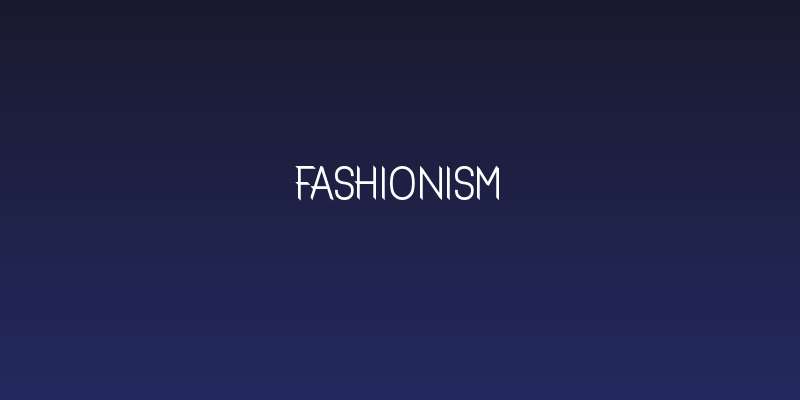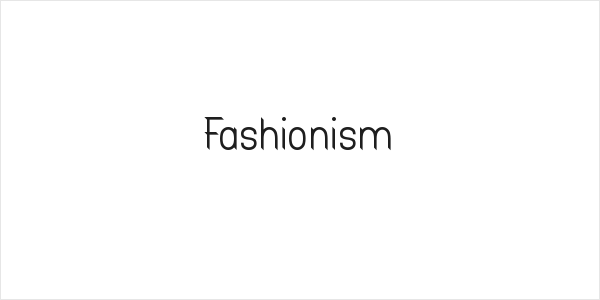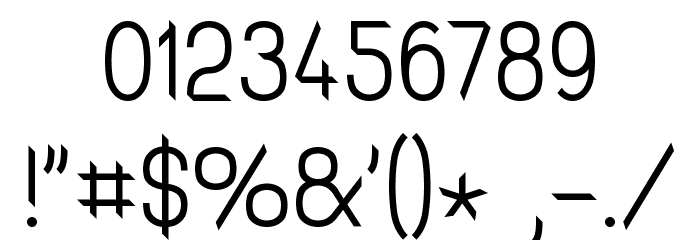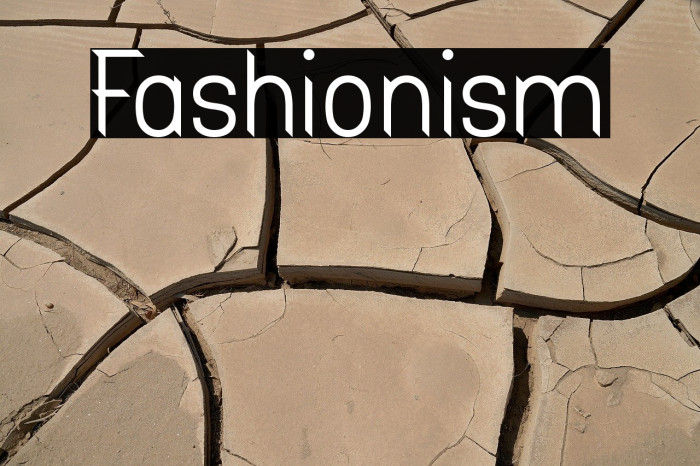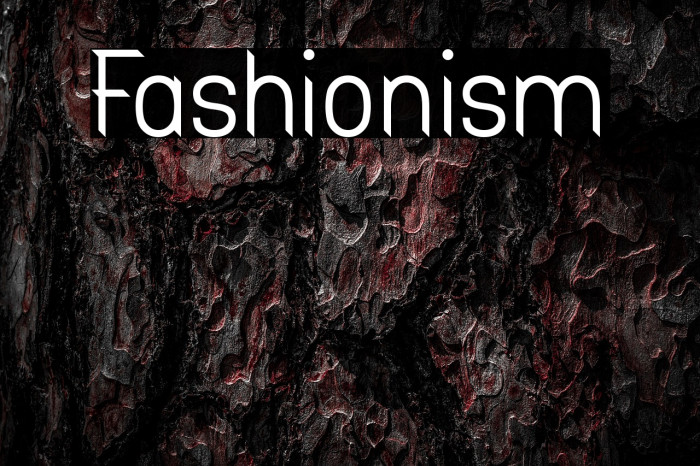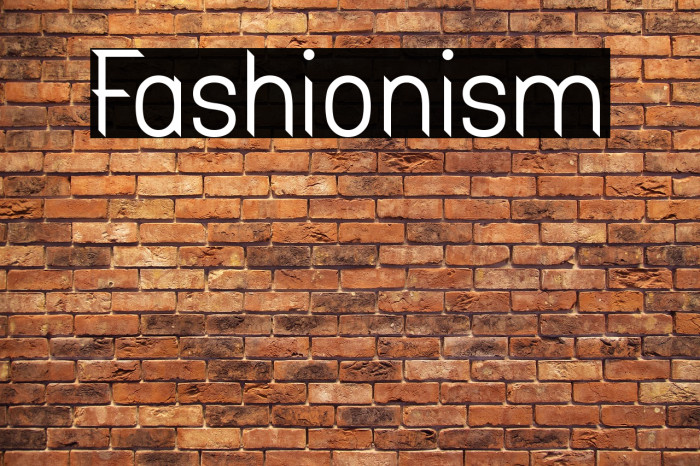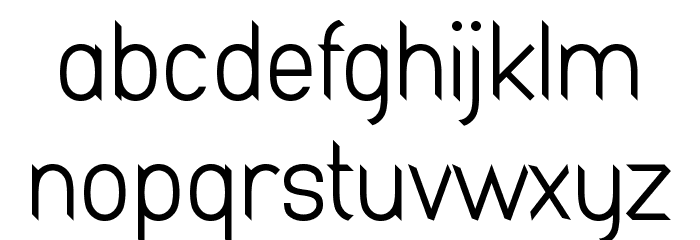
Fashionism Font
Fashionism Description
This font exhibits a clean and modern aesthetic with a geometric sans-serif style. The characters are well-balanced, featuring uniform stroke widths that contribute to a harmonious appearance. The uppercase letters are slightly taller than average, giving them a commanding presence, while the lowercase letters maintain a consistent height that complements the uppercase. The numerals are clear and legible, matching the overall style of the alphabet. Special characters are distinct and integrate seamlessly with the rest of the typeface, making it versatile for various applications. The font's simplicity and clarity make it suitable for both digital and print media.